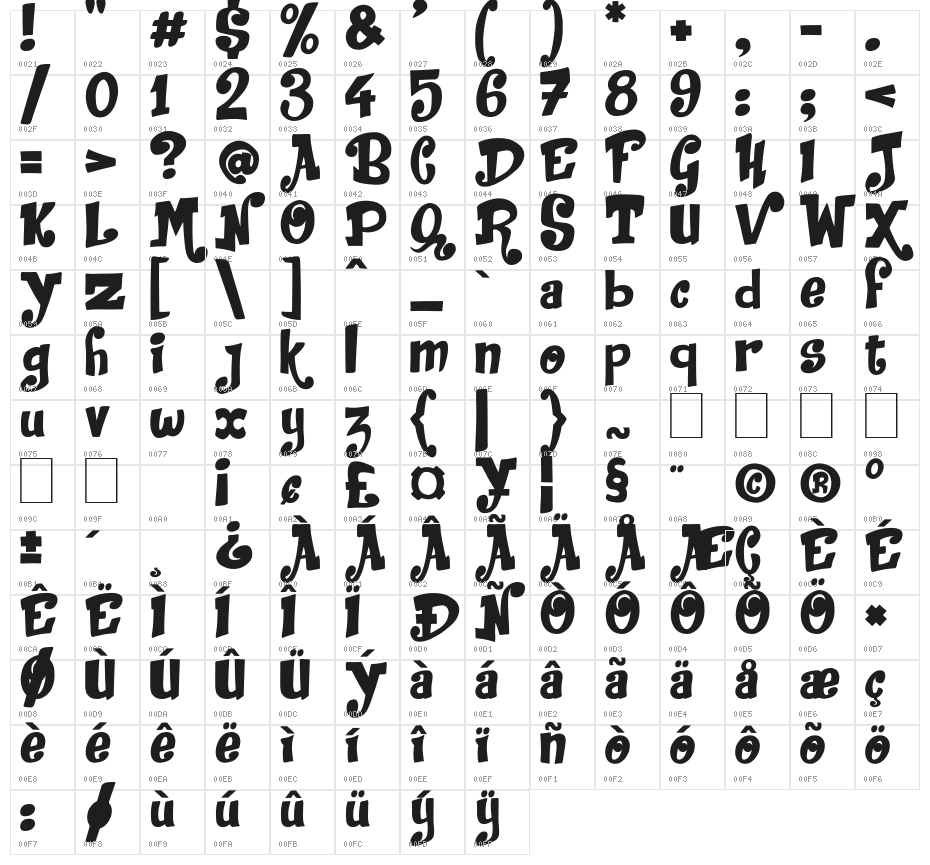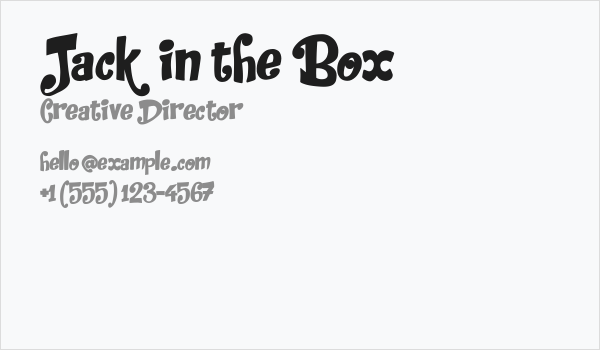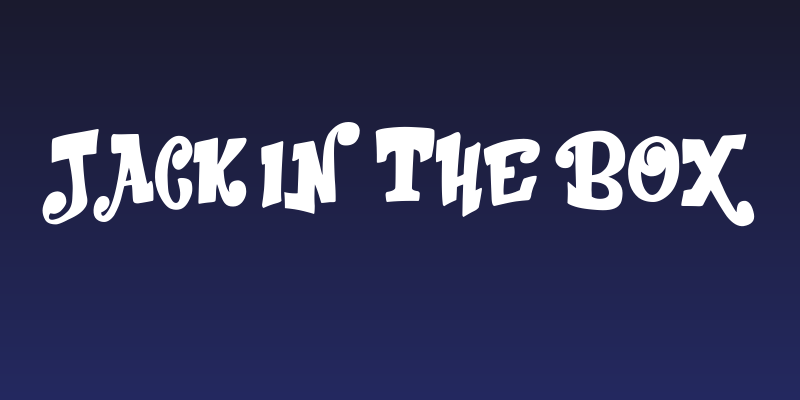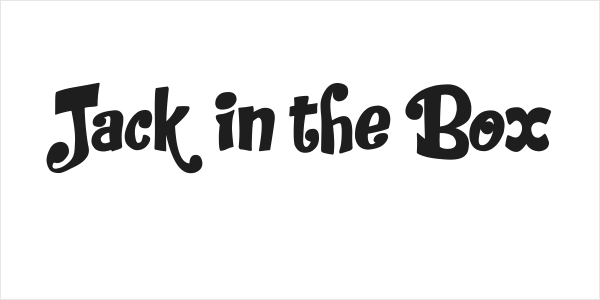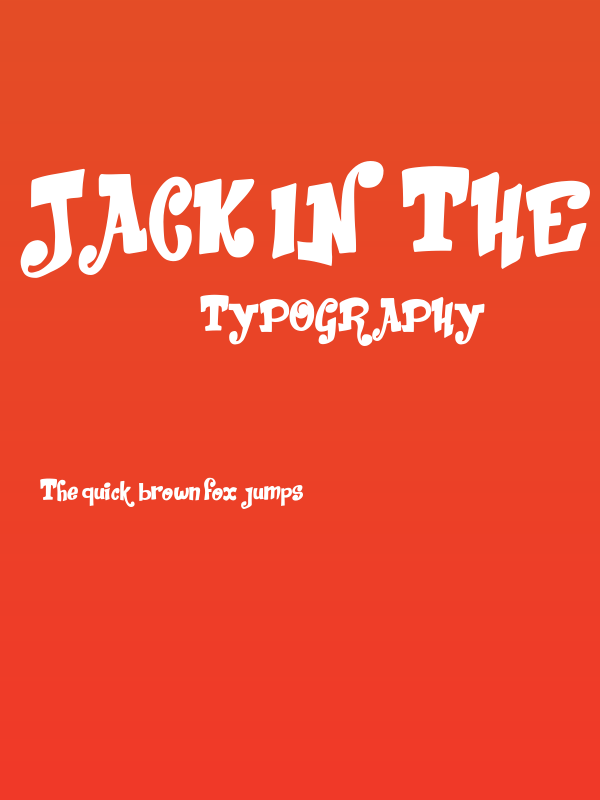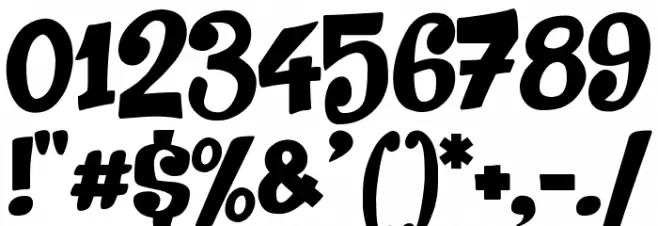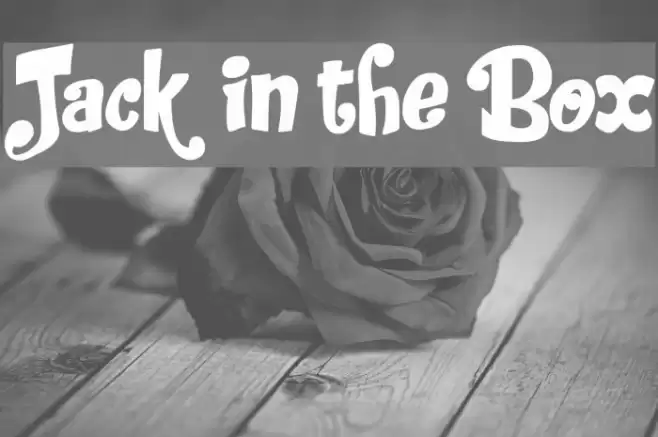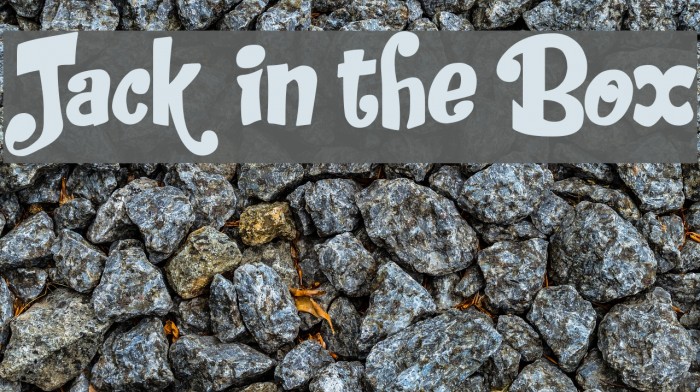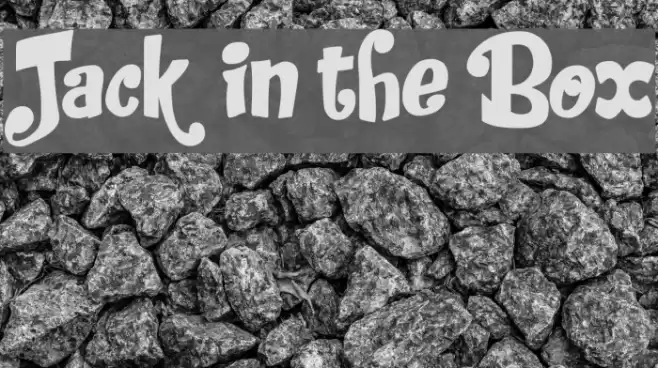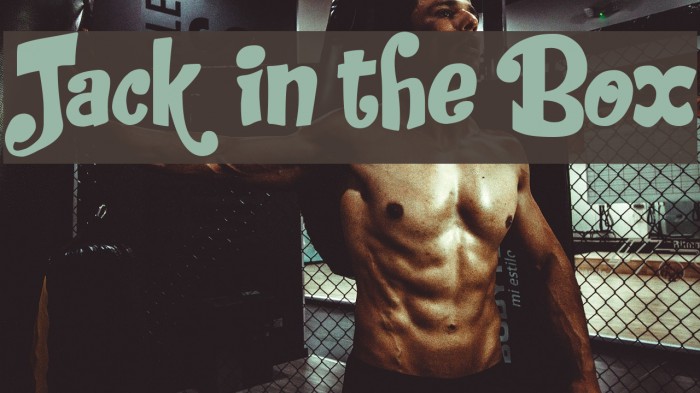
Jack in the Box Font
This playful and whimsical font features bold, exaggerated strokes with a hand-drawn feel. The characters are highly stylized, with unique curves and flourishes that give it a lively and energetic appearance. The uppercase letters are particularly distinctive, with varying heights and widths that create a dynamic and unpredictable rhythm. The lowercase letters maintain this playful style, with rounded edges and a slightly uneven baseline that adds to the font's charm. The numbers and special characters are equally bold and expressive, making them stand out in any design. This font is perfect for projects that require a fun and informal touch.